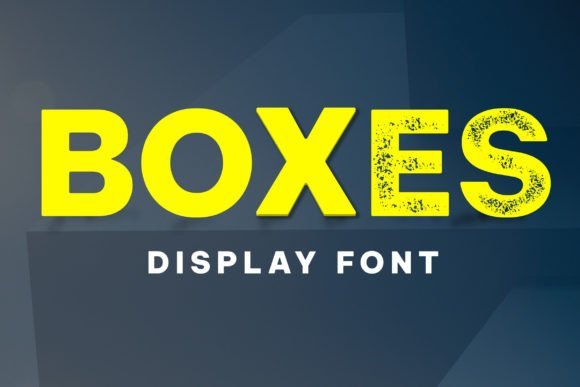
The Perfect Retro Touch: Unleashing the Power of Boxes Font
Have you ever been working on a design project, and you just can’t seem to find the right font to bring it all together? You’ve tried every font in your arsenal, but nothing seems to capture the essence of your creative vision. That’s when it hits you – the perfect font to elevate your design to the next level. For me, that font is Boxes Font.
Boxes Font is a vintage-style display font that adds a unique touch to any design idea. Its cool, retro vibe is perfect for designers looking to add a little extra flair to their projects. Whether you’re working on a branding project, a poster, or a social media campaign, Boxes Font is the perfect addition to your design toolkit. Its versatility and charm make it a valuable asset for any designer looking to create stunning designs that stand out from the crowd.
Boxes Font Key Features
- Font Family: Boxes Font offers a range of font families, including sans-serif, serif, and script styles, with a total of 10 font families.
- Unique Characteristics: Boxes Font features a unique, geometric design aesthetic with clean lines and minimal ornamentation, making it ideal for modern and minimalist designs.
Designer Review: Boxes Font
Overall, I have mixed feelings about the Boxes Font. On one hand, it’s quite versatile and works well for certain projects.
- Fresh, modern aesthetic that can add a touch of sophistication to digital products
- Good for creating clean and minimalistic interfaces, perfect for tech-related websites or apps
- Includes a decent range of weights and styles, allowing for some flexibility in design
- Feels a bit generic and lacks unique character, making it blend in with other fonts
- Lack of subtle nuances and details, which can make it difficult to read at smaller font sizes
- Not ideal for body text or large blocks of content, as it can become tiresome to read
Ultimately, the Boxes Font is a decent choice for projects where you need a clean, modern look. However, it may not be the best option for more complex designs or those requiring a lot of personality.
“Boxes Font” is ideal for creating unique and modern designs, such as:
- Headings and titles for websites and blogs
- Typography elements for branding and marketing materials
- Custom text layers for graphic designs and illustrations